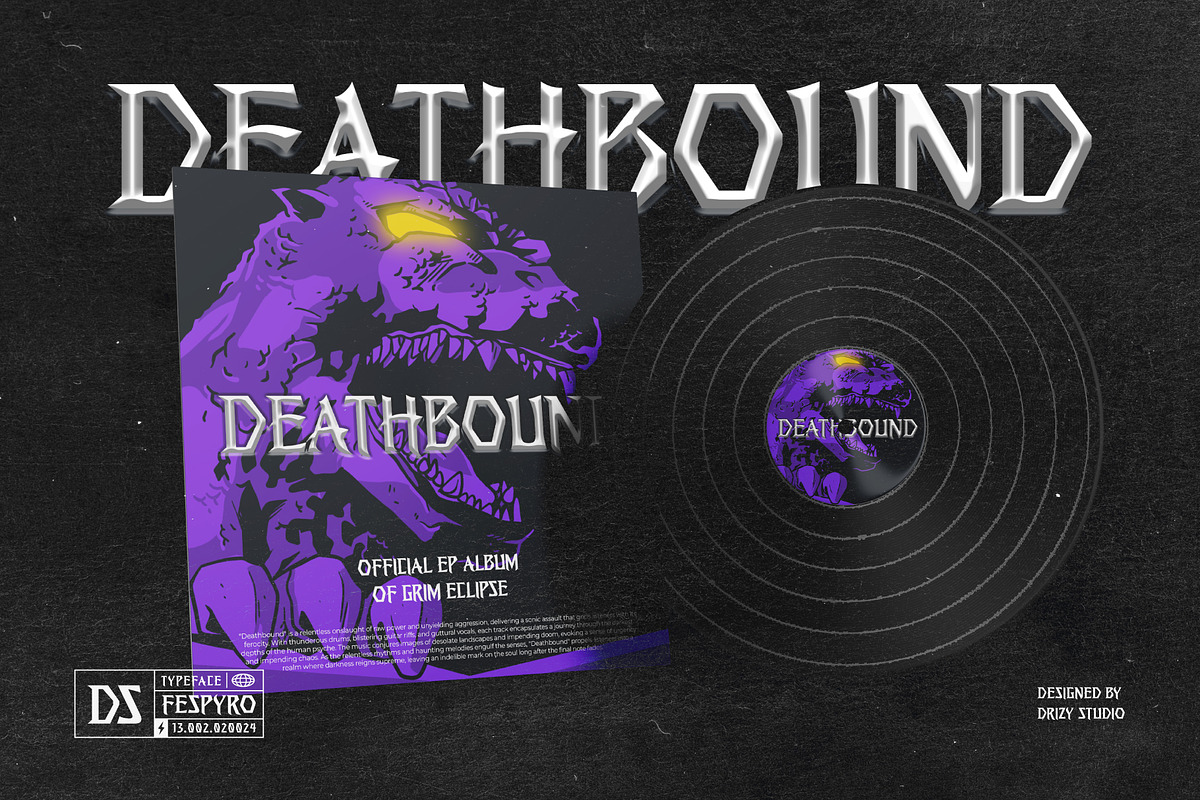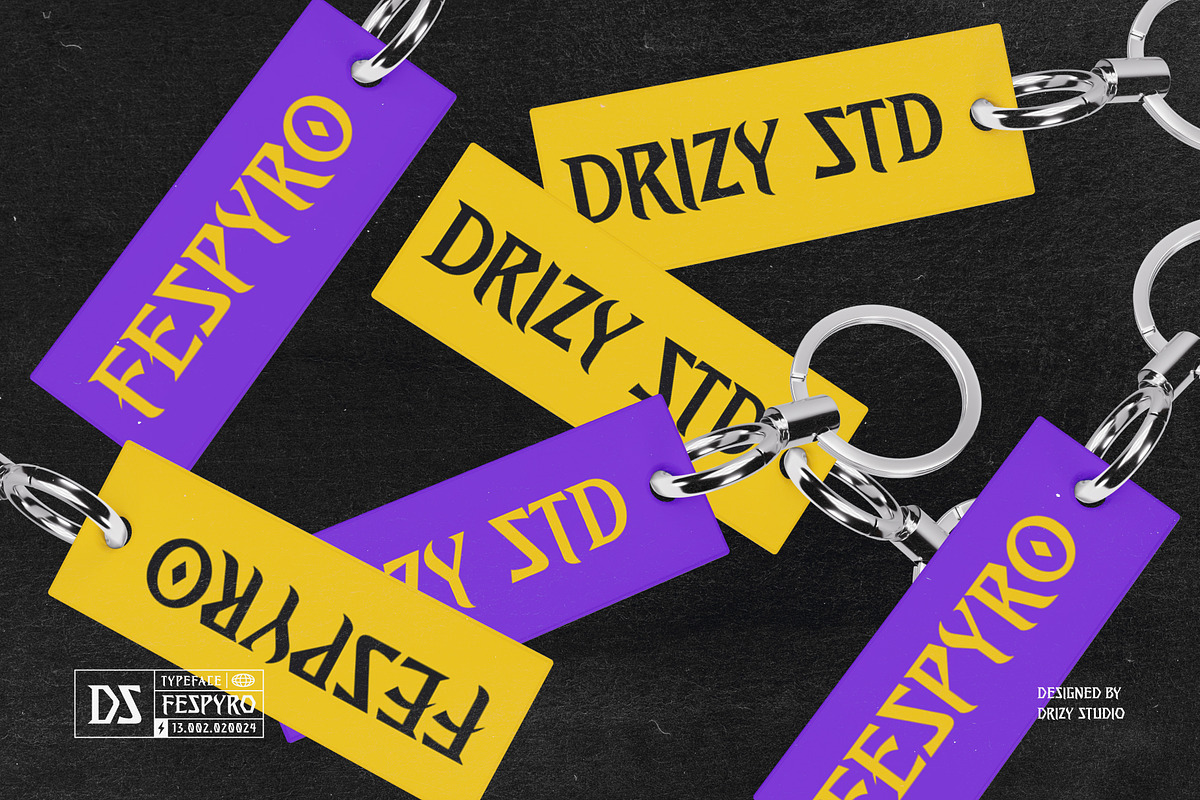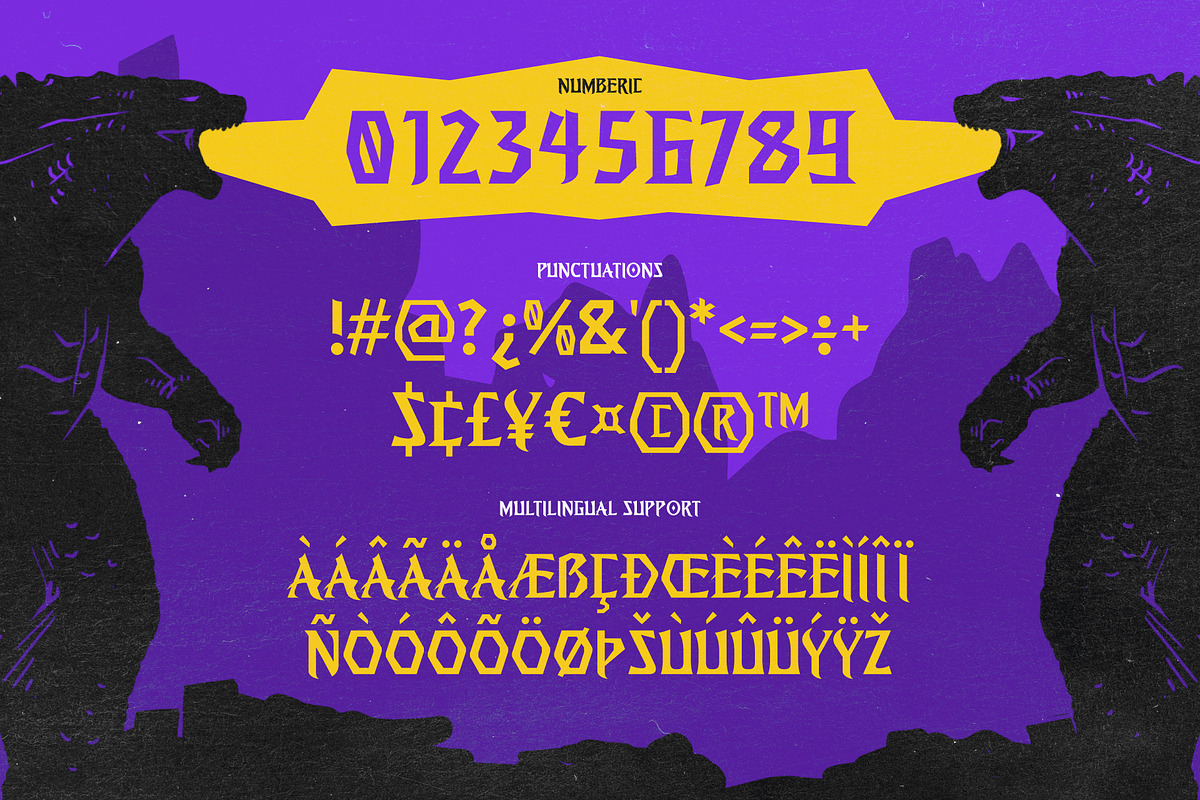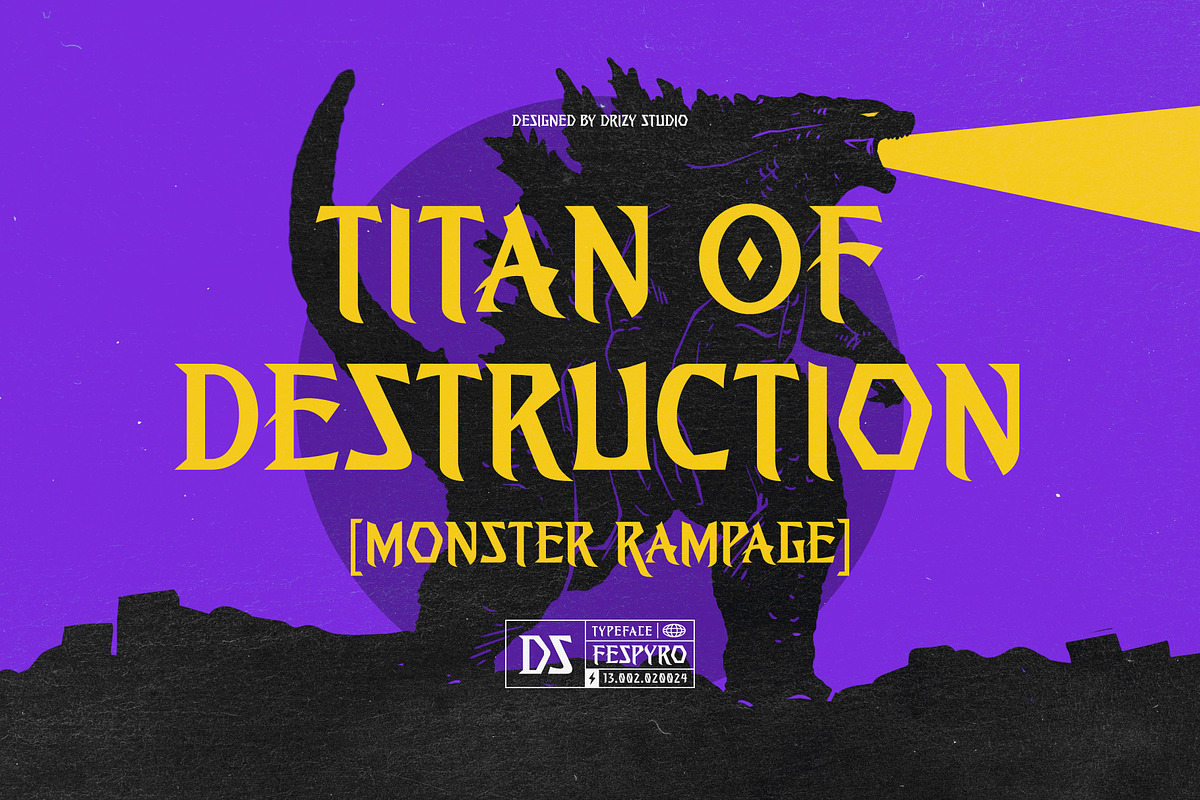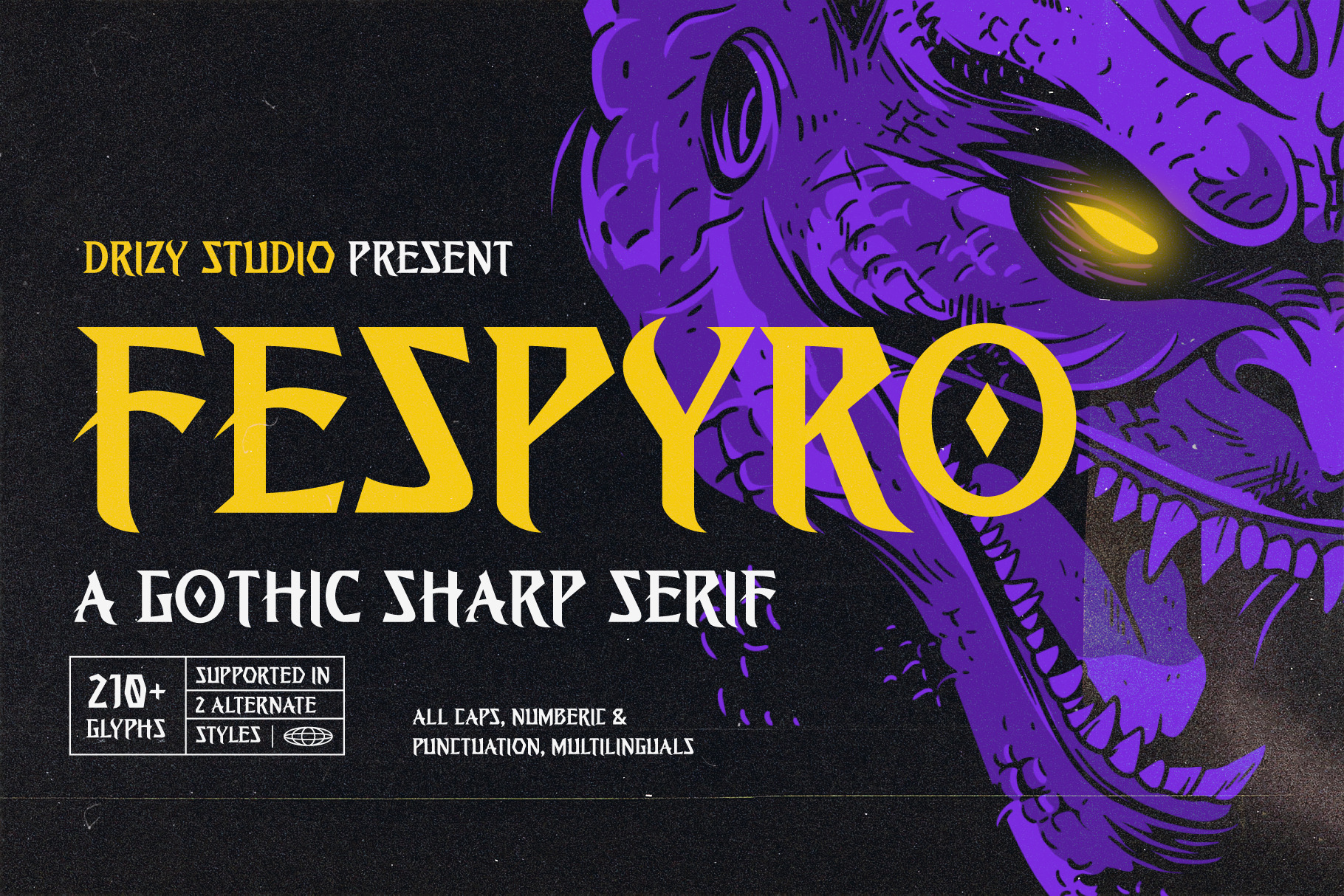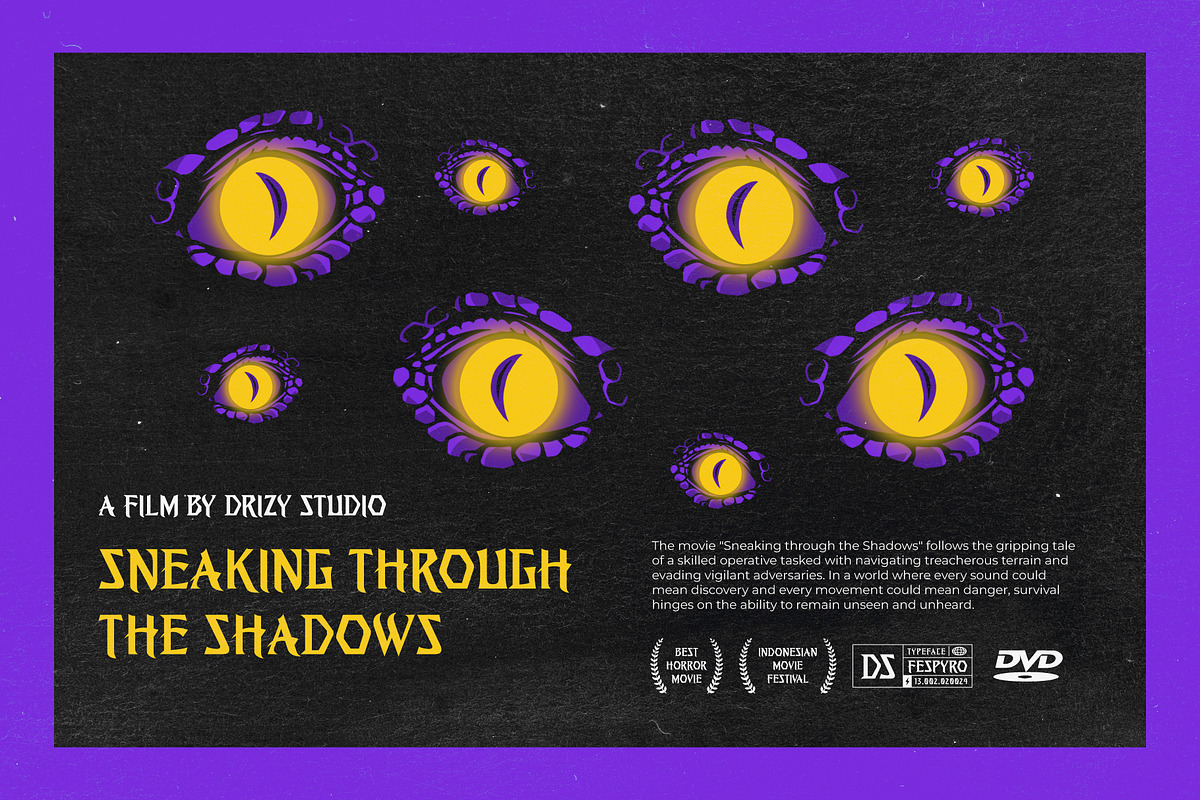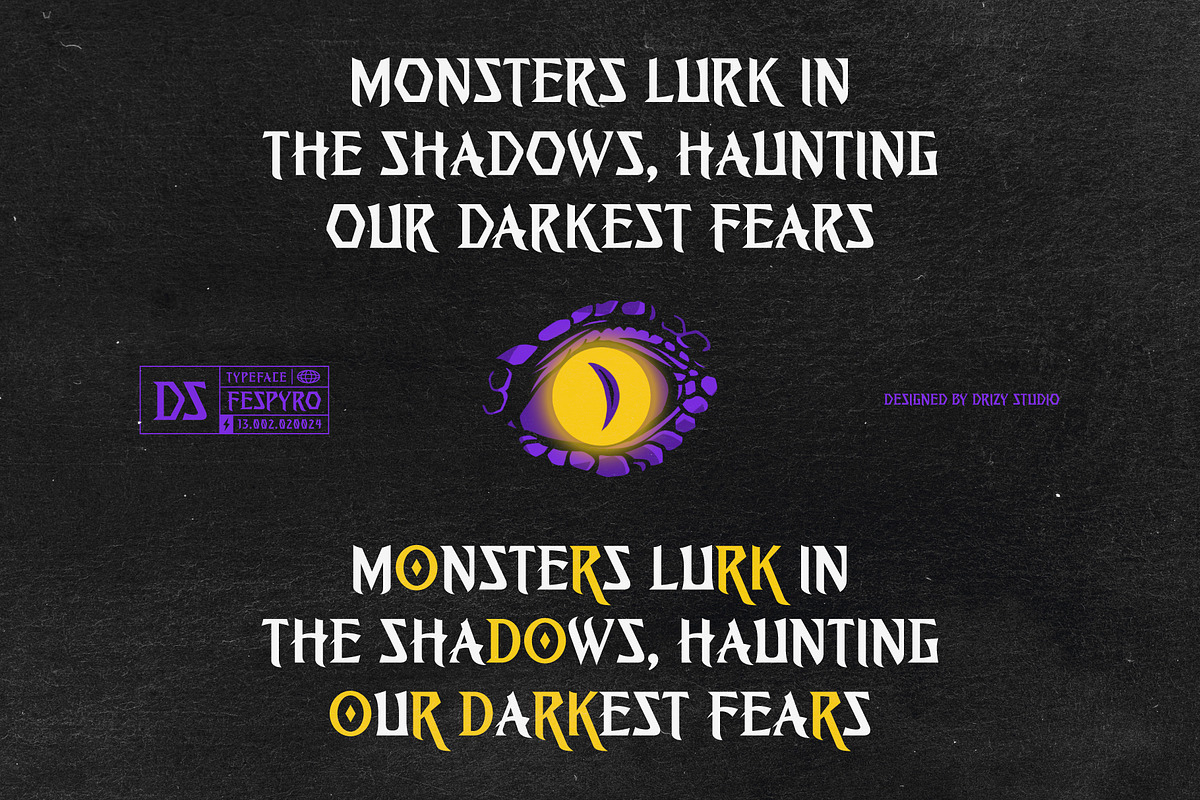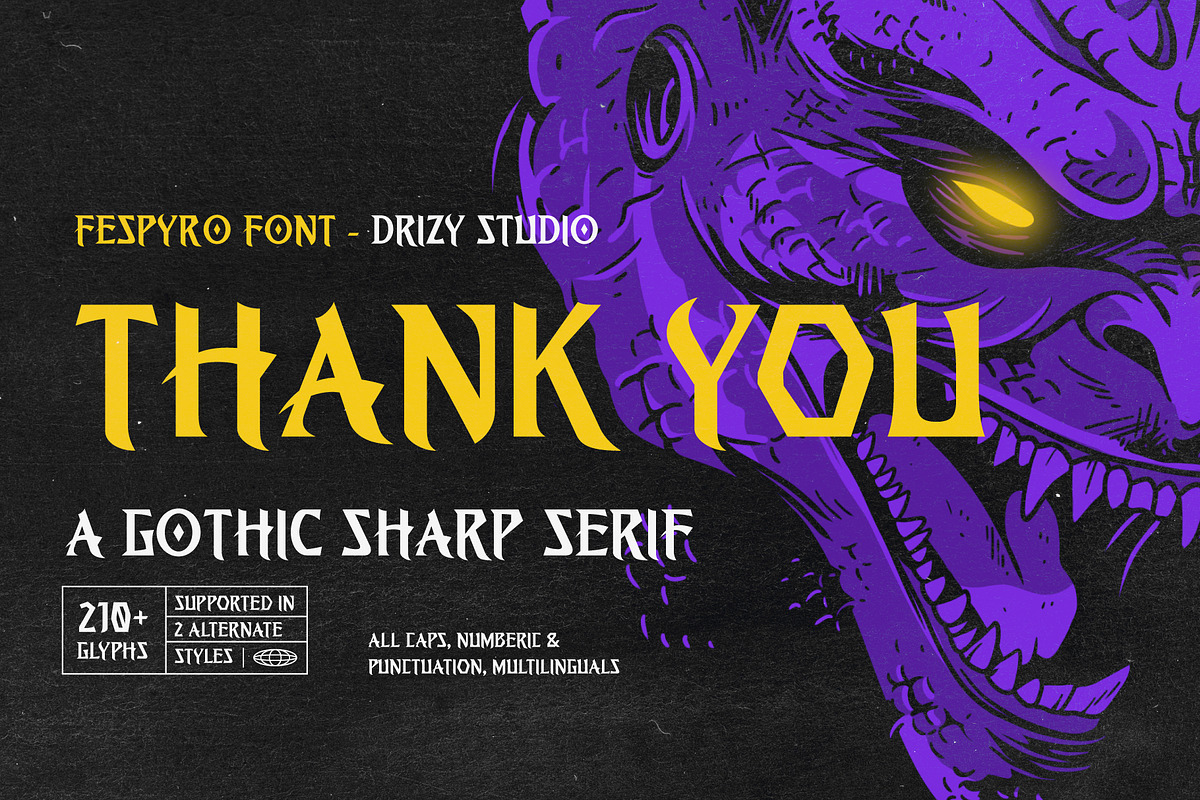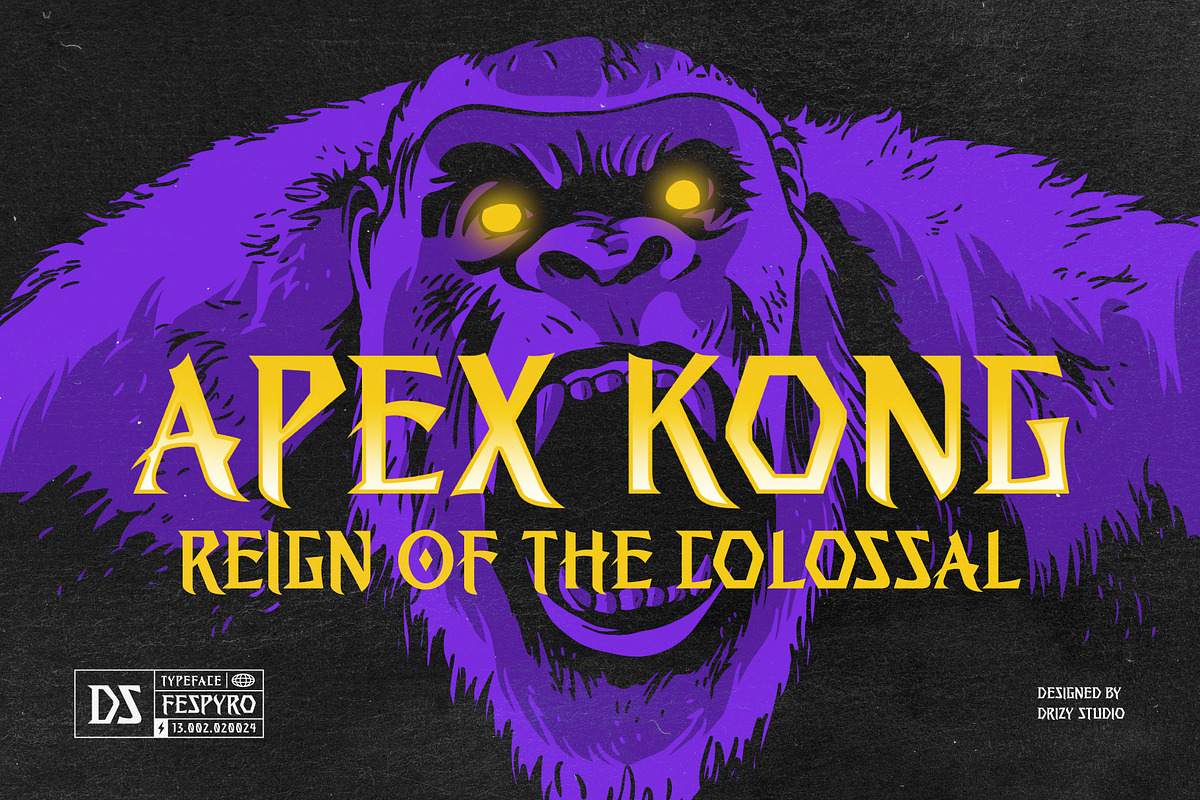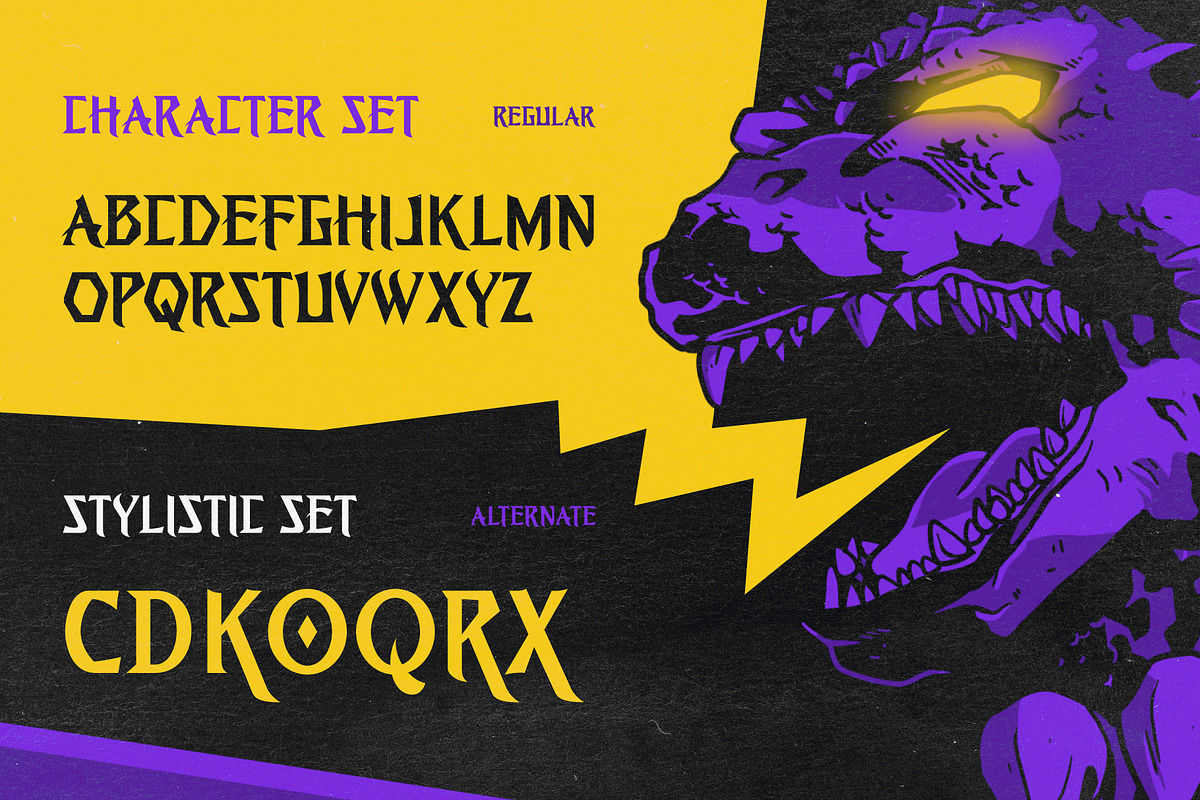
Fespyro - Gothic Sharp Serif Font
Fespyro - Gothic Sharp Horror Font is a hauntingly captivating typeface that brings an eerie and chilling atmosphere to your design projects. This font is specifically crafted to evoke a sense of suspense, mystery, and horror, making it an ideal choice for Monster & Kaiju vibes, horror movie posters, book covers, and any project that demands a touch of the macabre.
Fespyro features: Character Set Punctuation & Numbers Multilingual Alternates